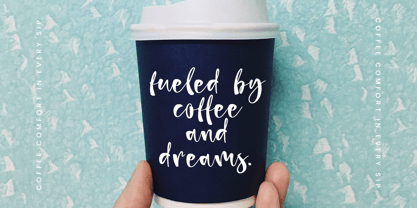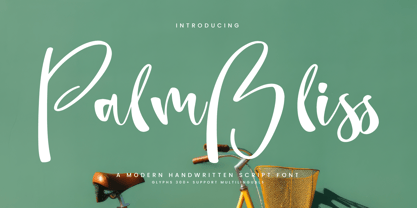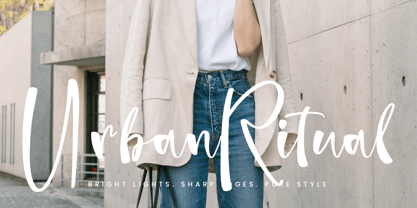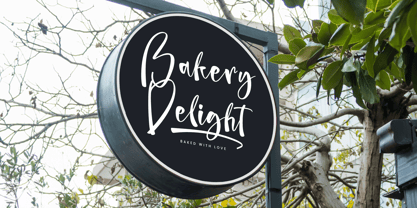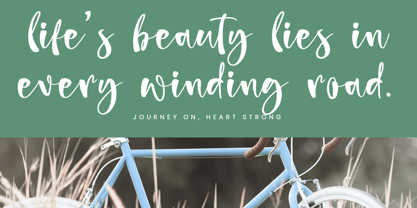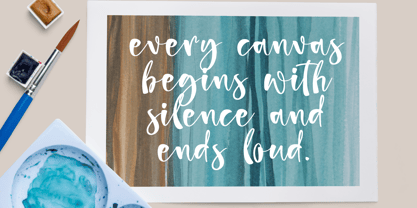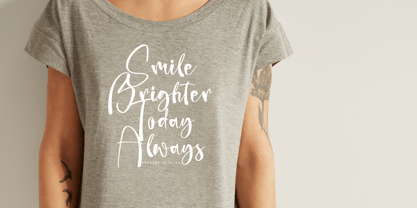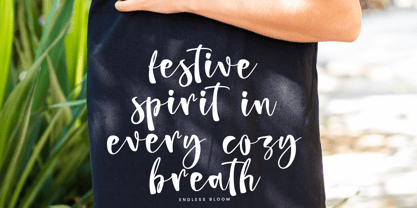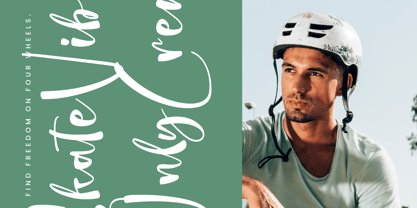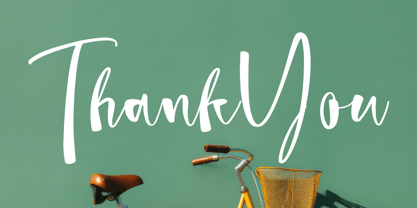
Palm Bliss
by Integritype
The Palm Bliss Font Family was designed by Ranndy Rizky Febrian and published by Integritype. Palm Bliss contains 2 styles and family package options.
Palm Bliss - A Modern Handwritten Script Font, from Integritype Studio, perfect for any project like: logos, branding projects, homewares designs, product packaging, mugs, quotes, posters, shopping bags, t-shirts, covers books, business cards, invitation cards, greeting cards, labels, photography, watermarks, special events and all your other luxury projects that require a premium taste.
Designers: Ranndy Rizky Febrian
Publisher: Integritype
Foundry: Integritype
Design Owner: Integritype